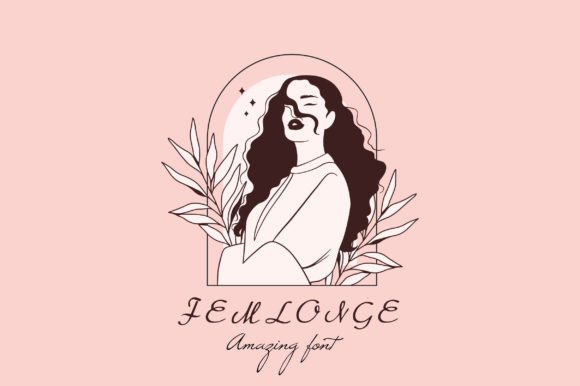
Introducing Femlonge Font - A Masterpiece of Creativity for Your Tattoo Designs!
Embark on a captivating journey with Femlonge Font, a remarkable script font family that will transform your tattoo designs into breathtaking works of art. Designed with meticulous attention to detail by LDesign, Femlonge takes inspiration from the fluidity and elegance of feminine handwriting, resulting in a font that exudes charm and sophistication.
With its playful and quirky nature, Femlonge Font introduces an irregular baseline that adds an enchanting touch of unpredictability to your designs. This unique characteristic ensures that each tattoo you create will possess a distinctive personality, reflecting the unique essence of the wearer.
Unleash your creativity and add a dash of vibrancy to your designs with Femlonge Font. Its meticulous attention to detail, playful spirit, and captivating irregularity will transform your tattoos into captivating masterpieces that speak volumes about your artistry and the individuality of your clients.
Delve into the world of Femlonge Font and let your imagination soar. Its exceptional feminine serif style exudes a timeless elegance that will leave an indelible mark on your clients. Whether you're designing a delicate wrist tattoo or a bold statement piece, Femlonge Font will elevate your work to new heights.
Embrace the boundless possibilities of Femlonge Font and witness the transformation of your tattoo designs into extraordinary works of art. Its quirky charm and captivating irregularity will leave a lasting impression, ensuring that each tattoo you create tells a unique and unforgettable story.